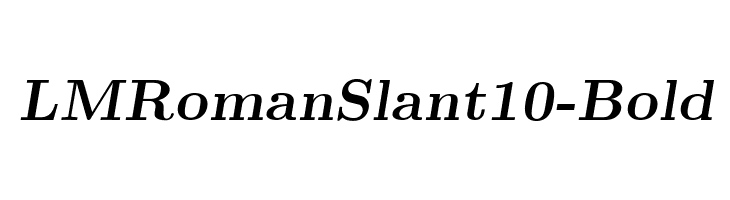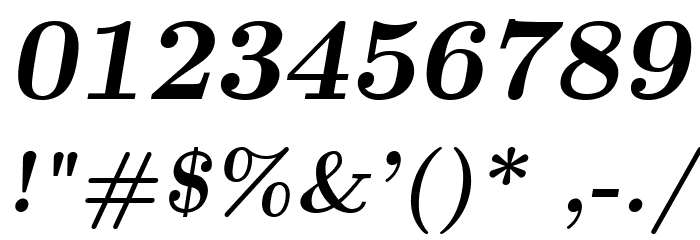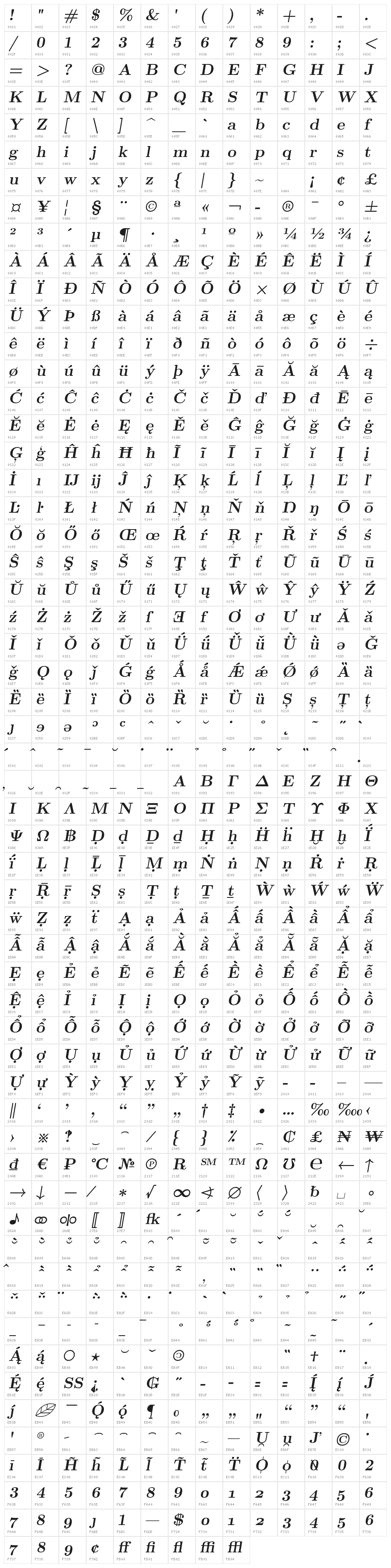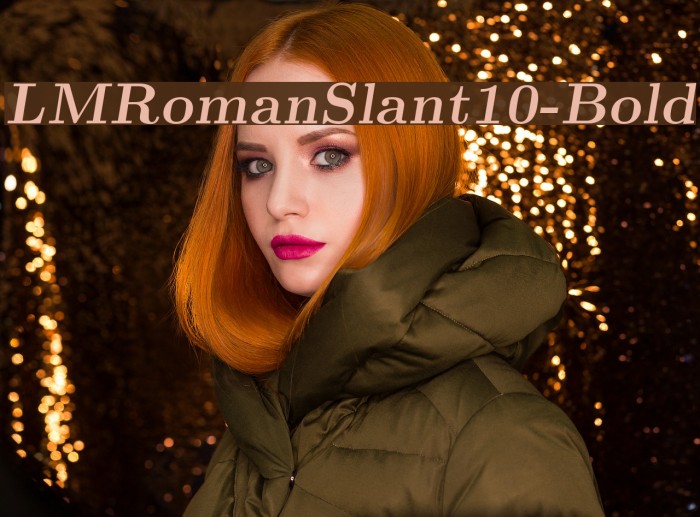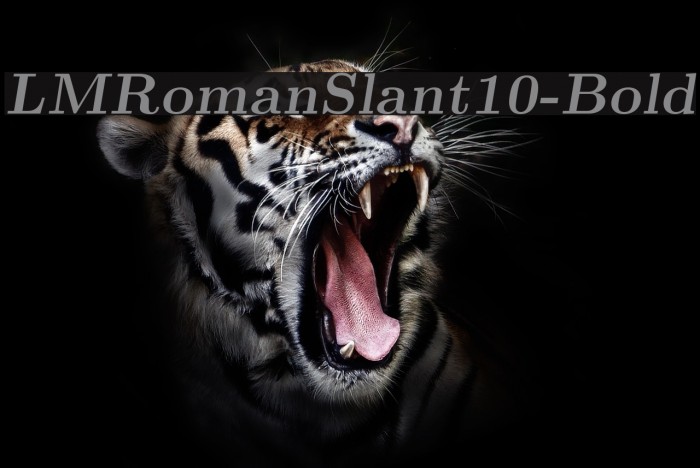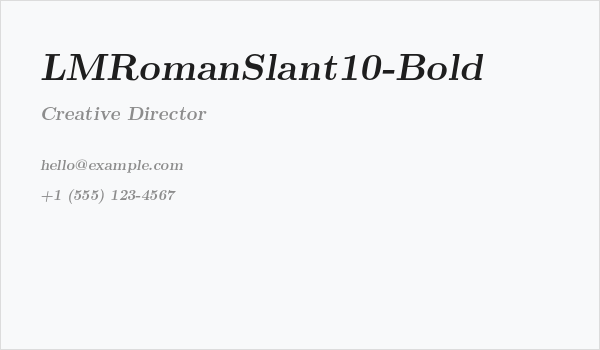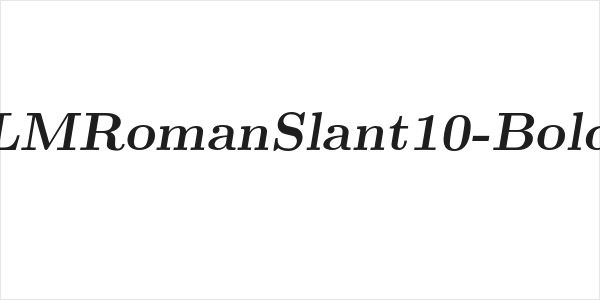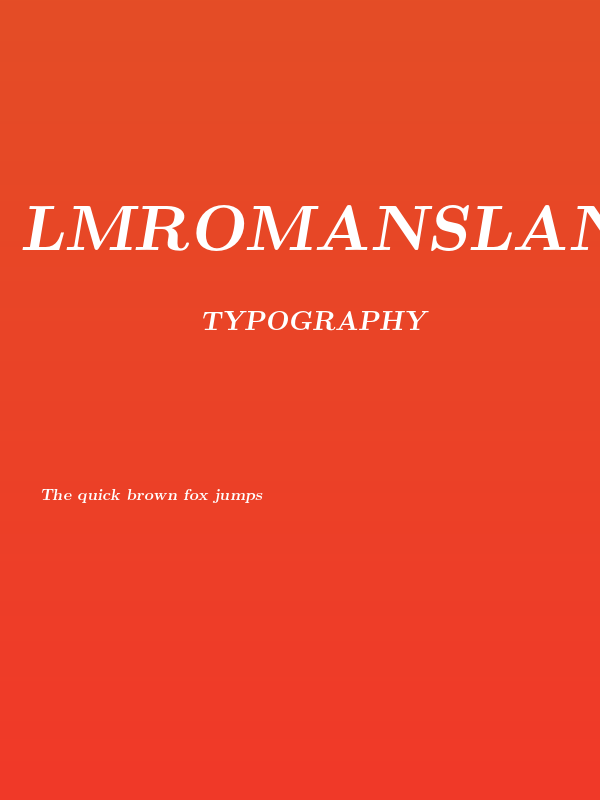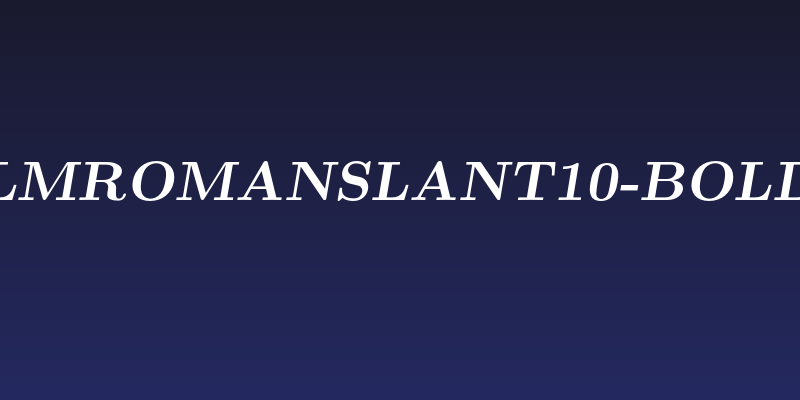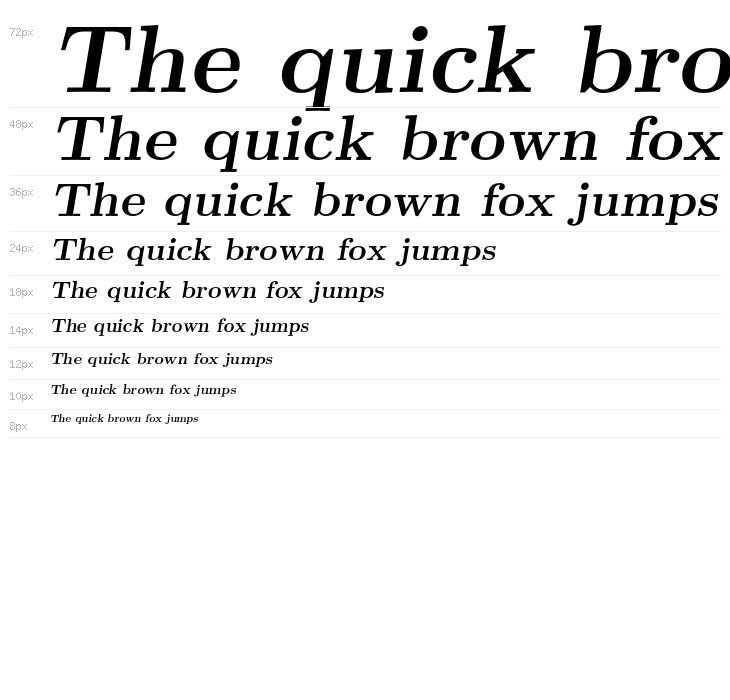
LMRomanSlant10-Bold Font
LMRomanSlant10-Bold Description
This font features a classic serif style with a distinct slant, giving it an elegant and dynamic appearance. The bold weight enhances its presence, making it suitable for impactful text. The uppercase letters are well-proportioned, while the lowercase letters maintain a consistent flow, contributing to its readability. The numerals are clear and balanced, and the special characters are designed with precision, ensuring versatility in various contexts. The overall design is sophisticated, with a medium contrast in stroke thickness that adds to its legibility and aesthetic appeal.
| Proposed Projects | Ideal for editorial design, book covers, formal invitations, and branding projects that require a touch of sophistication. |